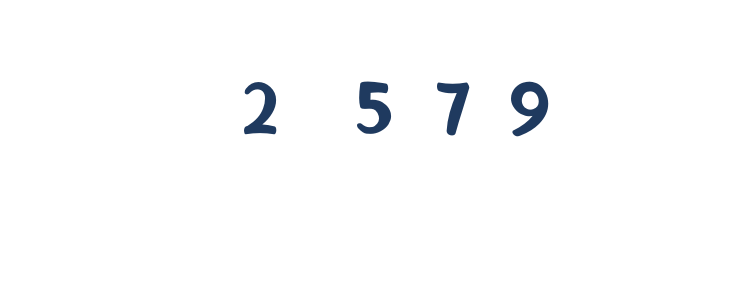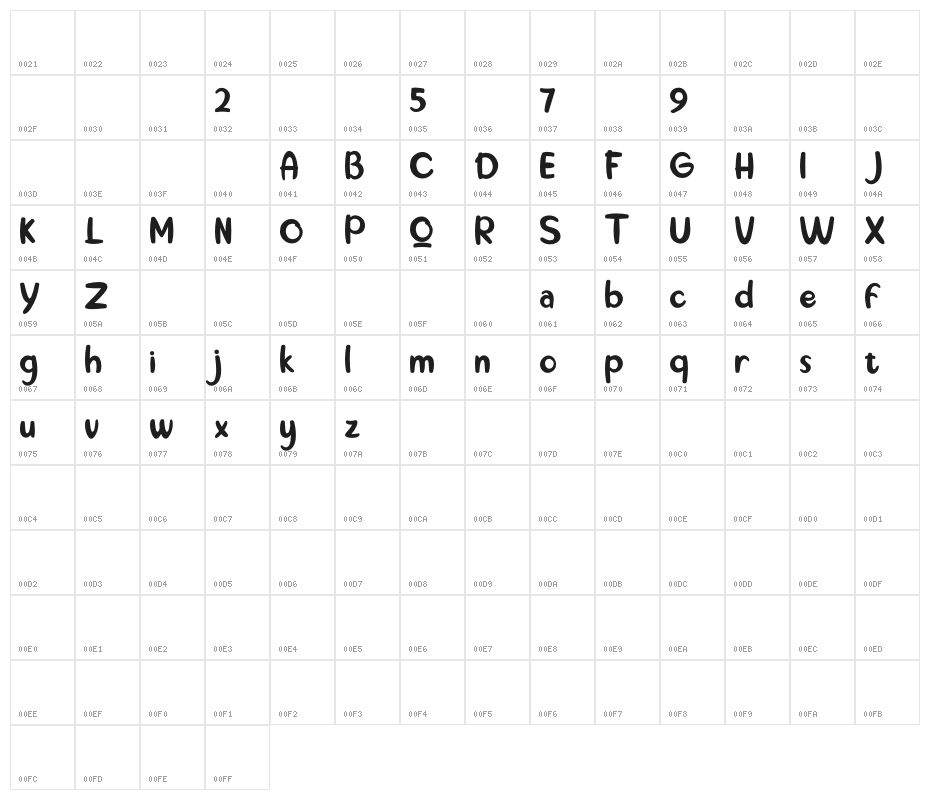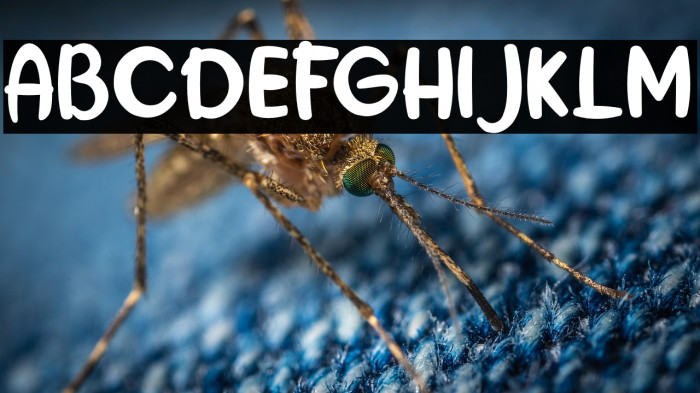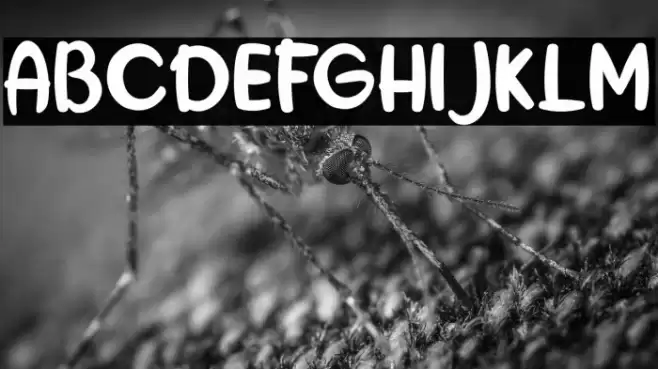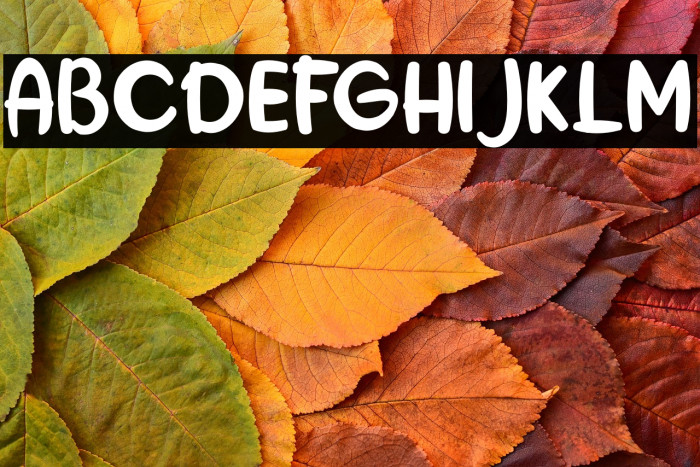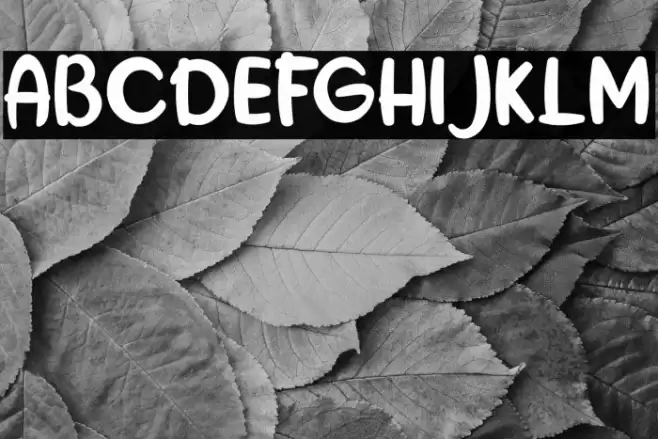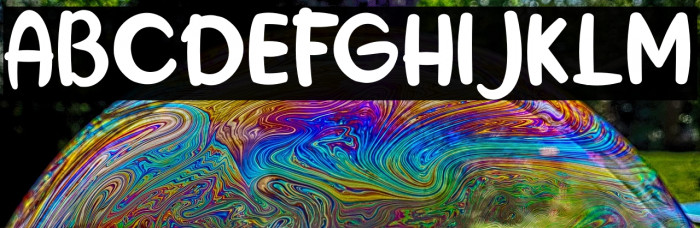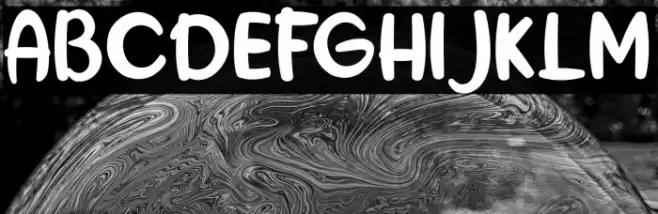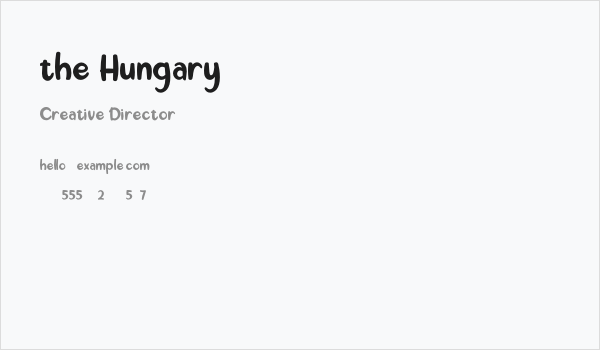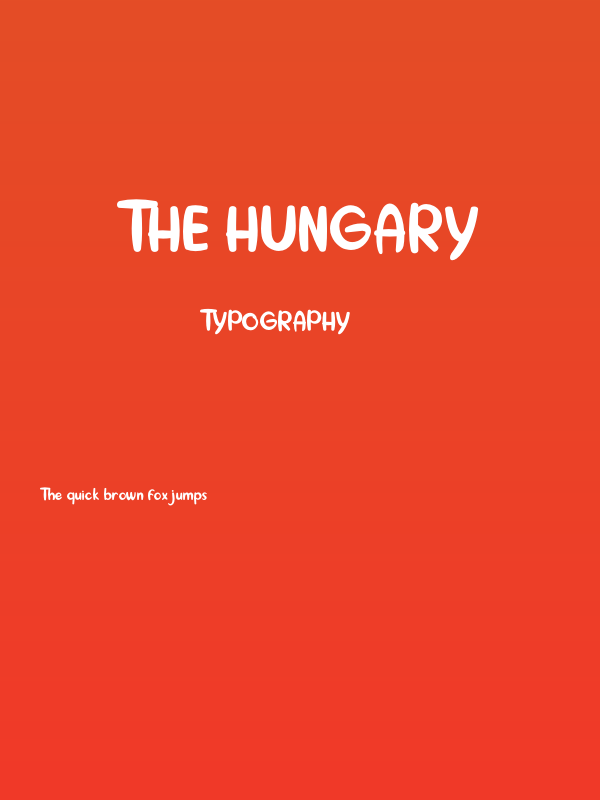
the Hungary Font
the Hungary Description
This font features a playful and whimsical style, characterized by its bold, rounded letters that convey a sense of fun and informality. The uppercase and lowercase letters maintain a consistent thickness, giving the font a uniform appearance. The numbers are similarly styled, with a slightly exaggerated curvature that enhances the font's playful nature. The overall design is reminiscent of hand-drawn lettering, making it suitable for projects that require a personal touch. The lack of sharp edges and the smooth, flowing lines contribute to its approachable and friendly aesthetic.
| Proposed Projects | Ideal for children's books, playful branding, casual invitations, and creative posters. |